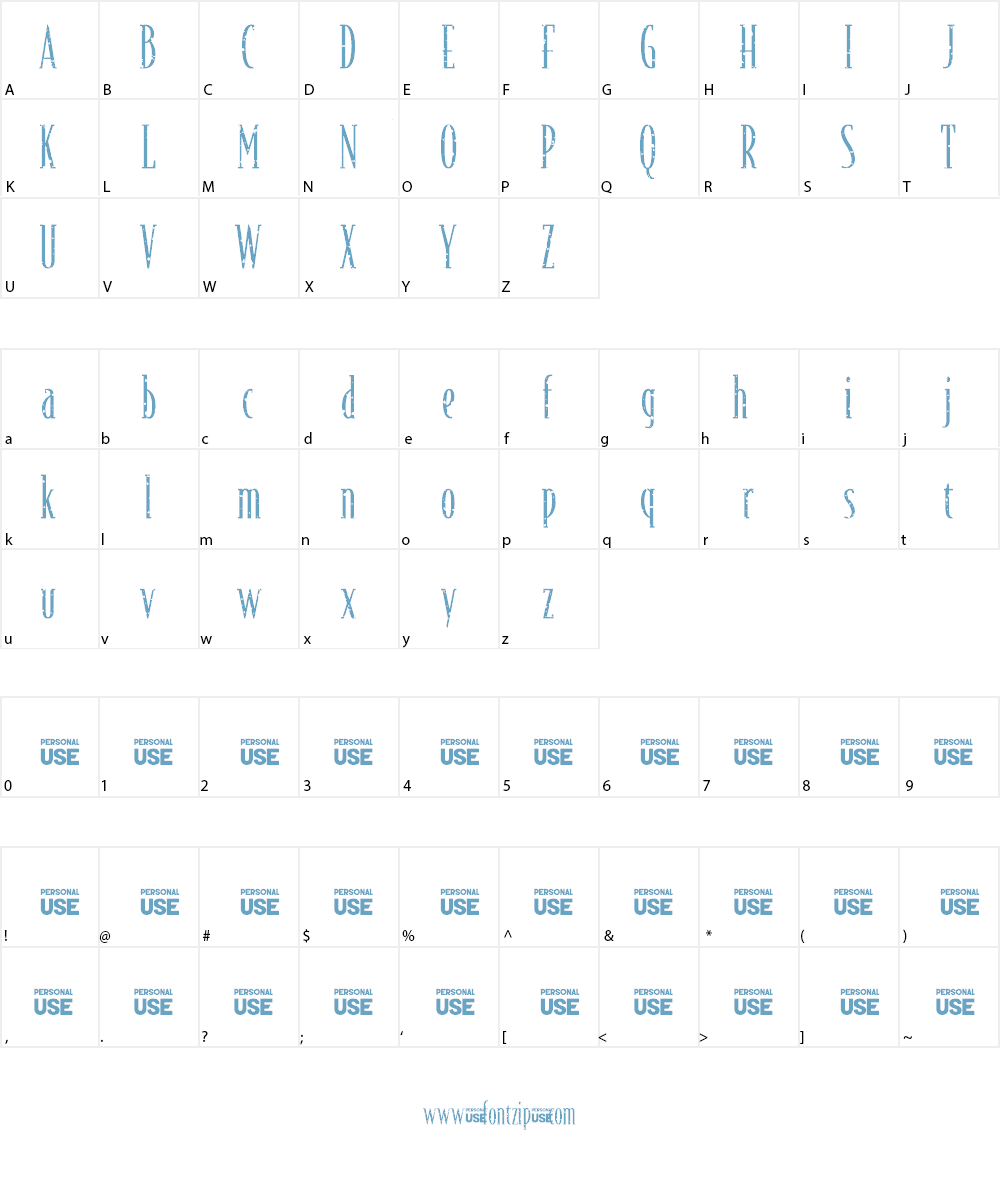
This typeface is an unofficial interpretation of the logo of defunct band As I Lay Dying, which we have done in honor of the lead vocalist Tim Lambesis.
Esta fuente tipográfica es una interpretación no oficial del logo de desaparecida banda As I Lay Dying, la cual hemos realizado en honor al vocalista principal Tim Lambesis.